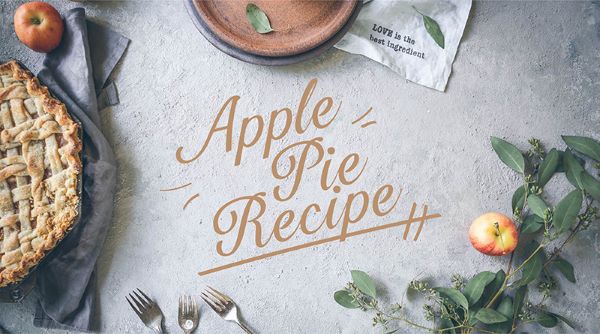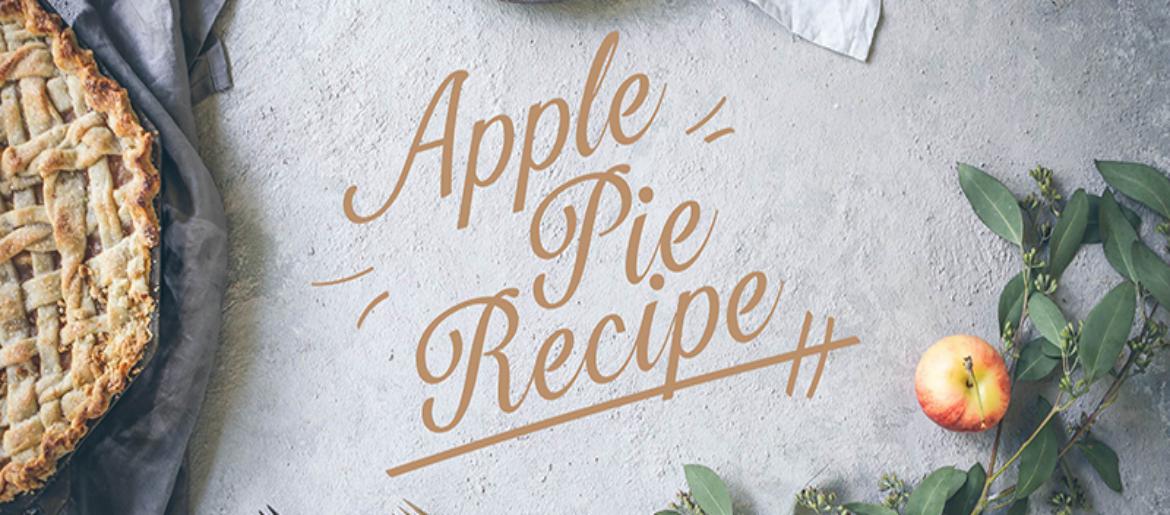
HF Poet Font
HF Poet by HyFont Studio is a calligraphic script that lives up to its literary name — unhurried, expressive, and infused with the quiet grace of a careful hand. Its flowing letterforms have a poetic rhythm, moving across the baseline with the kind of measured confidence that calligraphic scripts often strive for but don’t always reach. It suits creative applications where the writing itself carries meaning: book covers, poetry publications, journaling aesthetics, boutique branding, and invitations that want to feel genuinely handcrafted rather than merely decorative. Free for personal use.